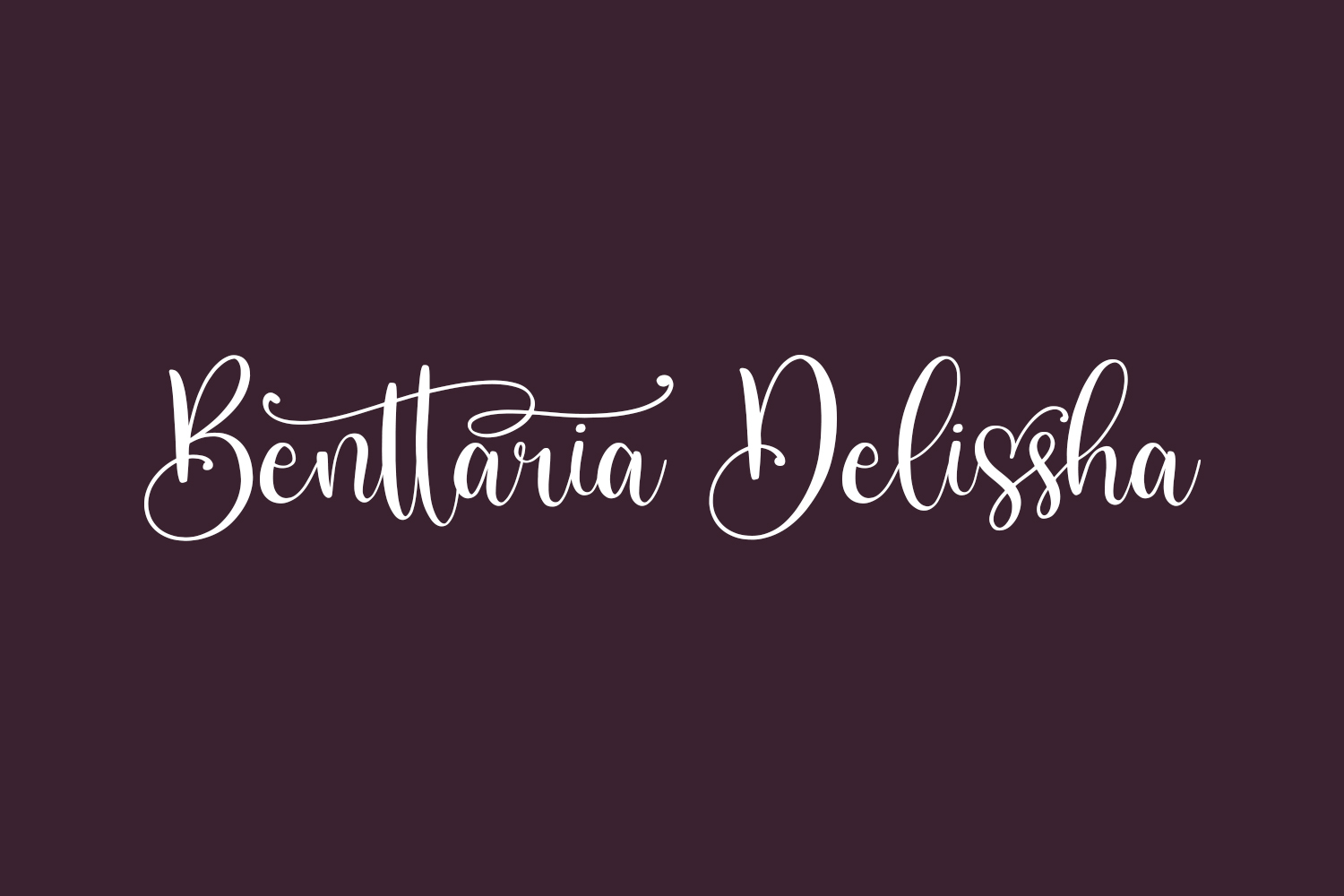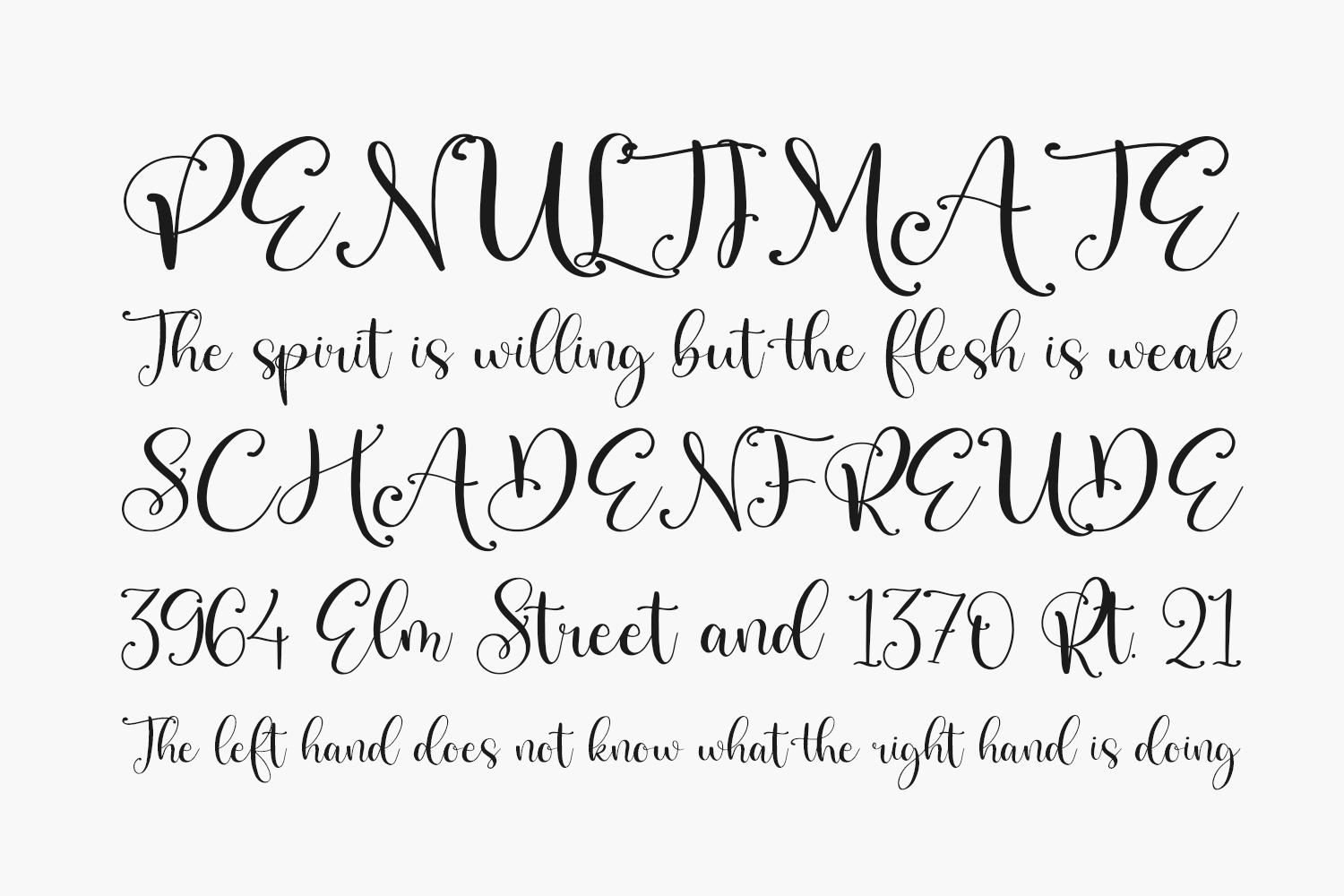
Benttaria Delissha Free Font Family is a romantic script font with marvelous characters and a really nice calligraphic style! It is perfect for wedding projects, birthday cards, elegant company designs, exquisite marketing campaigns, and more. Benttaria Delissha Free Font Family was designed by Perspectype Studio and is free for personal use only. Please purchase the full version for commercial use.
Benttaria Delissha Regular The quick brown fox jumps over the lazy dog
Benttaria Delissha Italic The quick brown fox jumps over the lazy dog